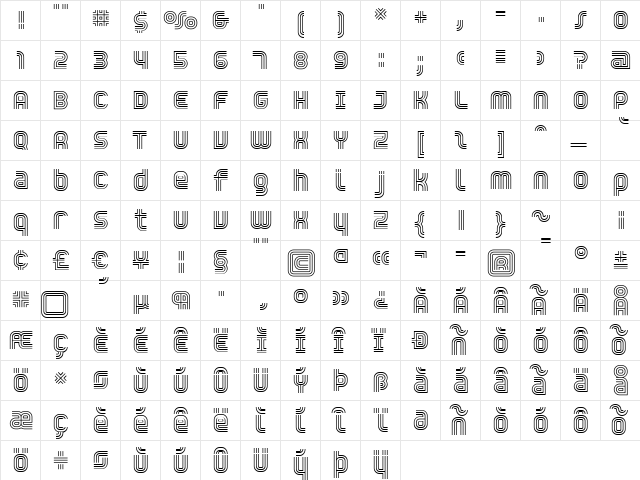
Trisect Light
| Foundry | YouWorkForThem |
| Designer | Michael Cina |
Design Context for Trisect Typeface
Trisect is a composed and adaptable typeface that performs quietly and consistently across a wide range of design contexts. The delicate stroke weight brings airiness and refinement to layouts.